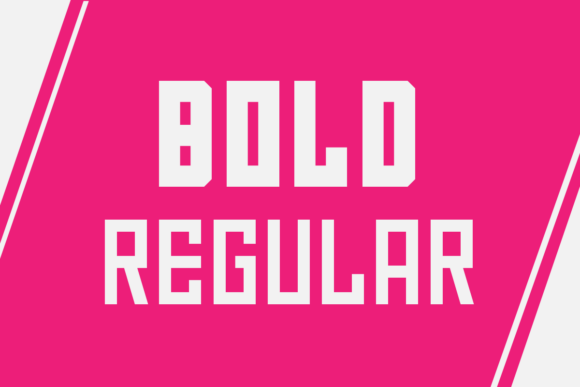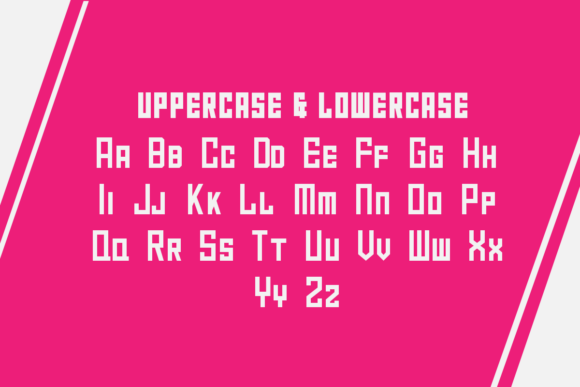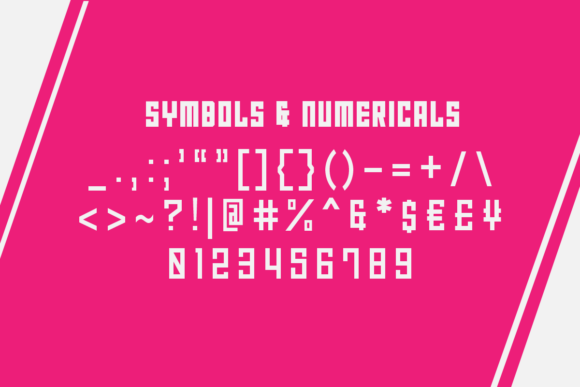
A New Era in Typography: Unveiling the Ardor Font
Have you ever been stuck on a design project, staring at a blank canvas, searching for that elusive spark to bring your vision to life? It’s a moment we’ve all been there – a mix of frustration and excitement, waiting for that perfect combination of creativity and inspiration to strike. For designers, this moment is what drives us to push the boundaries of innovation and style. And that’s exactly what the Ardor Font was designed to do.
As a futuristic square sans serif display typeface, Ardor Font embodies the essence of modern and futuristic design philosophy in its sleek and precise appearance. With its clean lines and geometric shapes, this font is the perfect tool for designers seeking to create visually striking and forward-thinking designs. Whether you’re working on a sci-fi movie title sequence or a futuristic product launch, Ardor Font is the perfect companion to help you bring your vision to life.
What makes Ardor Font truly valuable for designers is its versatility and adaptability. From digital screens to print materials, this font seamlessly transitions between different mediums, making it an invaluable addition to any designer’s toolkit. With Ardor Font, the possibilities are endless, and the creativity is limitless.
Ardor Font Key Features
- Font Family: Ardor Font is a modern sans-serif font family designed for digital use, offering a clean and professional look.
- Character Count: With over 700 glyphs, the Ardor Font family includes a wide range of characters, including Latin, Cyrillic, and Greek alphabets, as well as punctuation and symbols.
- Language Support: Supports over 200 languages, making it an excellent choice for global brands and companies with diverse linguistic needs.
- Size: The Ardor Font family comes in 10 weights, ranging from Light to Black, offering flexibility and versatility in typography.
Ardor Font Review
Overall, I think Ardor Font is a lovely addition to any design project, but it’s not without its quirks. Let’s dive into the good and the not-so-good.
- Ardor Font has a beautiful, elegant feel to it. It’s perfect for projects that need a touch of sophistication.
- The font is highly legible, even at smaller sizes, which is a must for any serious design project.
- The font family includes a range of weights and styles, giving designers plenty of options for customizing their project.
- Ardor Font can feel a bit generic at times. It’s not particularly unique or attention-grabbing, which may be a concern for designers looking for a font that stands out.
- The font doesn’t include any special characters or international language support, which may be a limitation for designers working on global projects.
Ardor Font is a solid choice for designers who need a clean, elegant font for their project. While it may not be the most exciting or unique option, it gets the job done. If you’re looking for a font that’s easy to read and works well in a variety of contexts, Ardor Font is definitely worth considering.
The Ardor Font is a versatile font suitable for various design projects, including:
1. Branding and logos
2. Digital marketing materials (social media, email, and website)
3. Print materials (business cards, brochures, and flyers)
4. Infographics and data visualizations